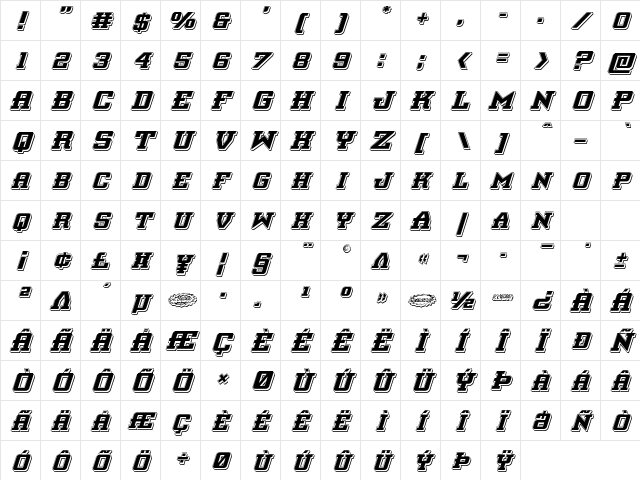
Interceptor Punch Italic Italic
Design Context for Interceptor Punch Italic
Interceptor Punch Italic is a composed and adaptable typeface that performs quietly and consistently across a wide range of design contexts. The slanted form adds forward momentum and visual energy.